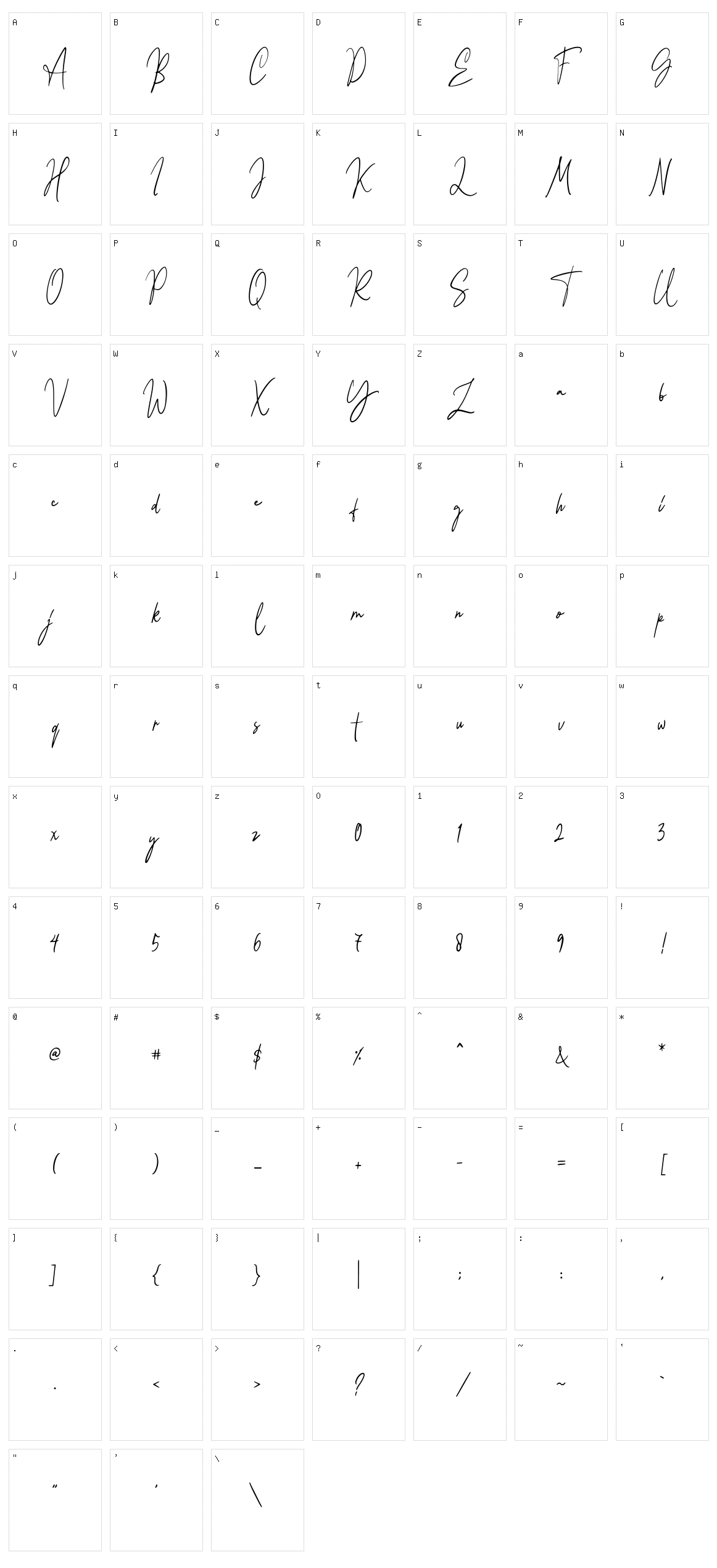
The free font Balietan is carefully designed by Nur Miftah, showcasing a thoughtful balance of creativity and usability and falls under the Script font style. When you download the ZIP file, it contains only 32.48 KB of font files, making it lightweight and quick to download. Please review the license details below to understand permitted usage and distribution rights. If license information is not available, we recommend using this font for personal projects only or contacting the author directly for commercial usage permissions.